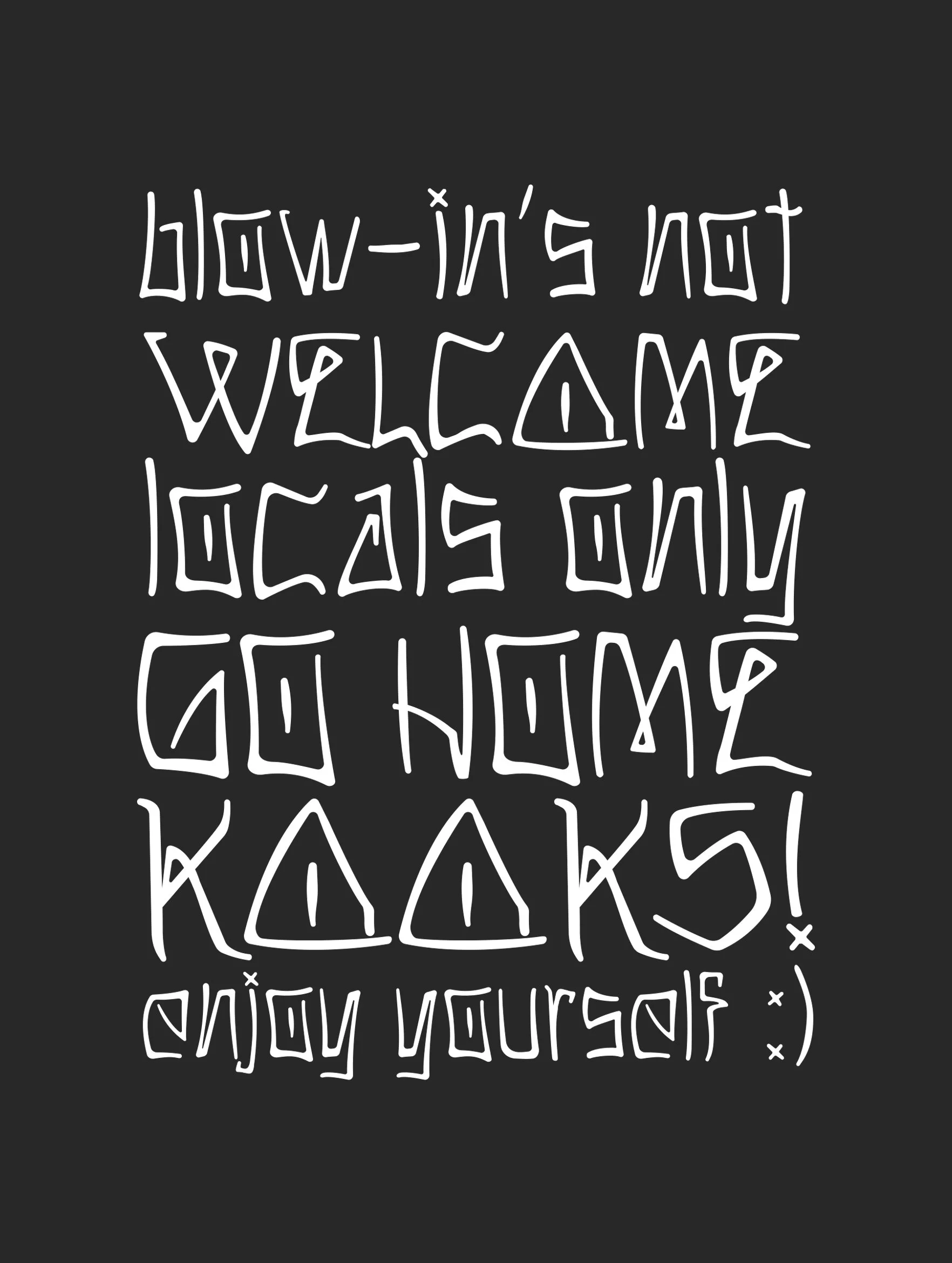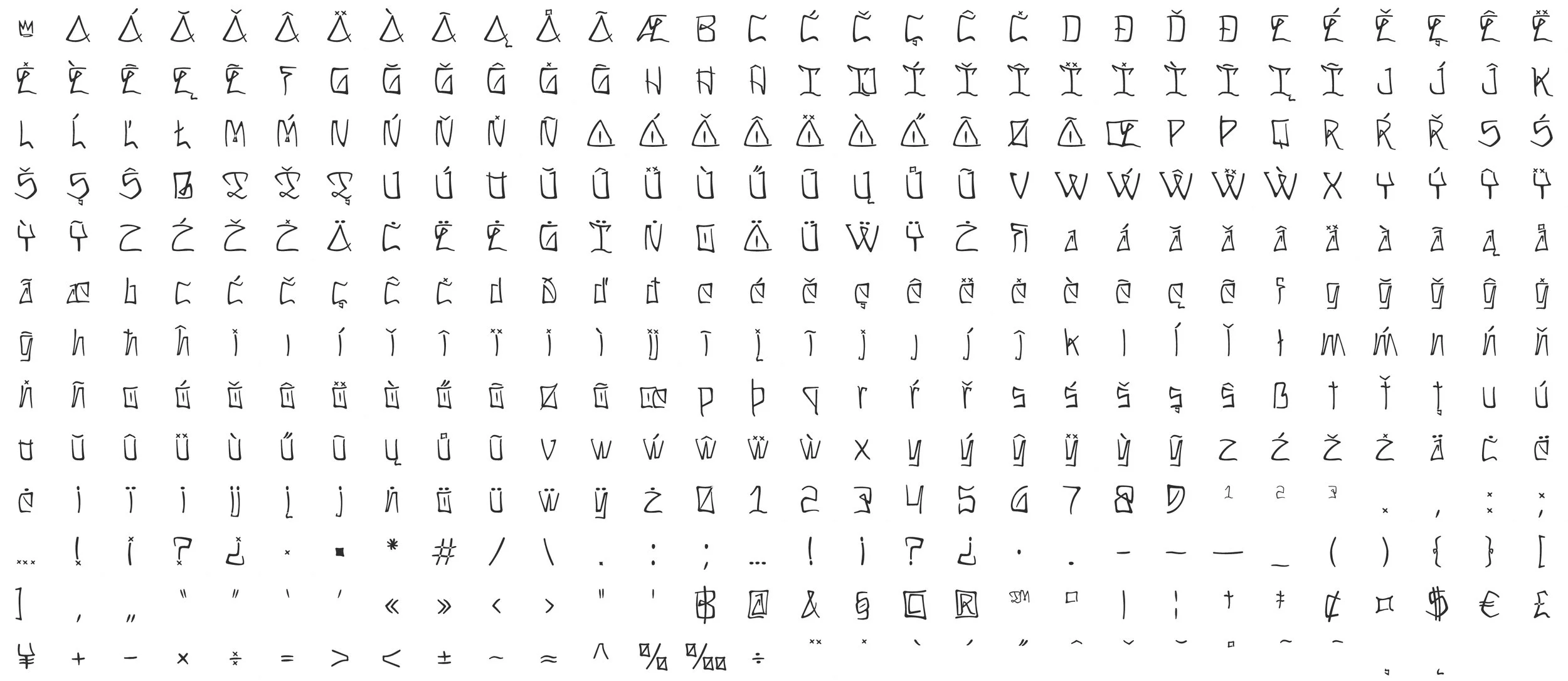
Skate Lord
Say hello to this typographic ode to the 1970s SoCal beach culture when bell-bottoms, skimpy bikinis, and questionable decisions were the norm. Like a local elitist fontface spray-painting its rebelliousness all over an abandoned pool. This is your ticket to a land of retro counter culture, territorialism, and angst. But be warned, you might just ditch your job to spend your days getting kicked out of abandoned pools and snaked on waves. Enough reading start designing!